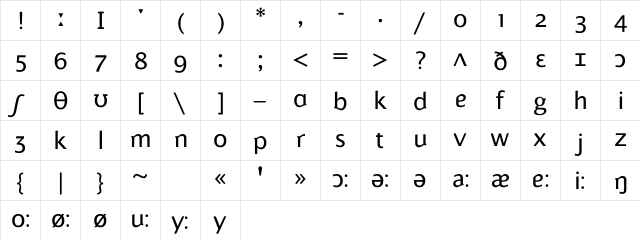
Betabet SansFonetik Regular
Design Context for Betabet SansFonetik Typeface
Betabet SansFonetik takes a measured approach to typography — its balanced proportions and neutral character make it a reliable workhorse for both digital and print work.